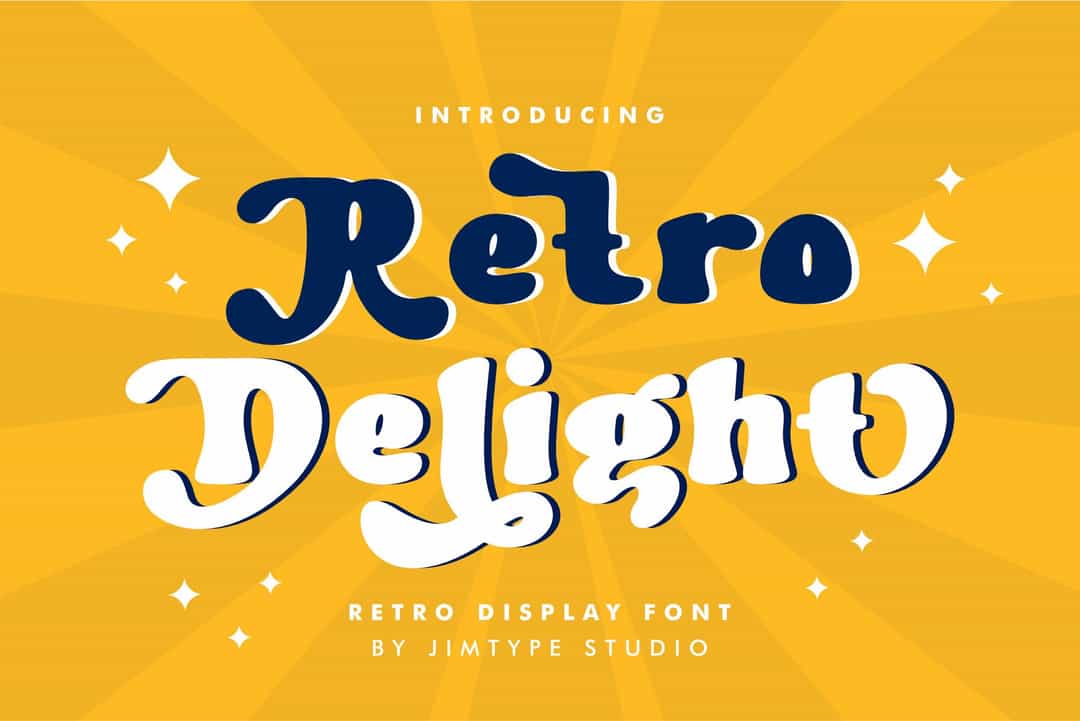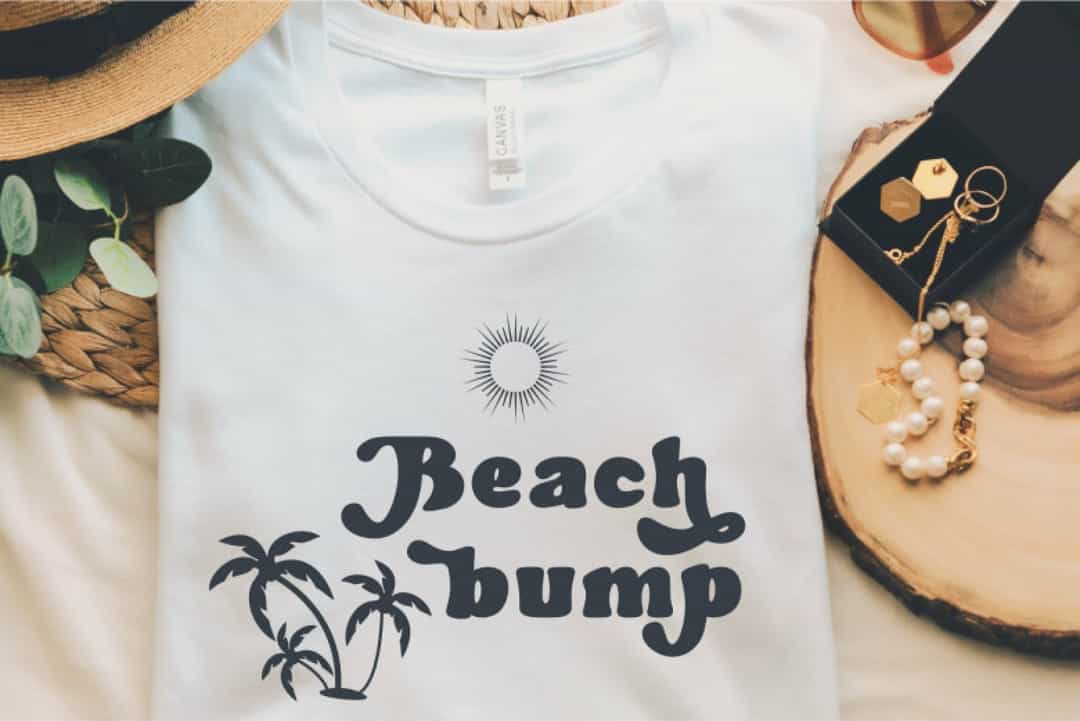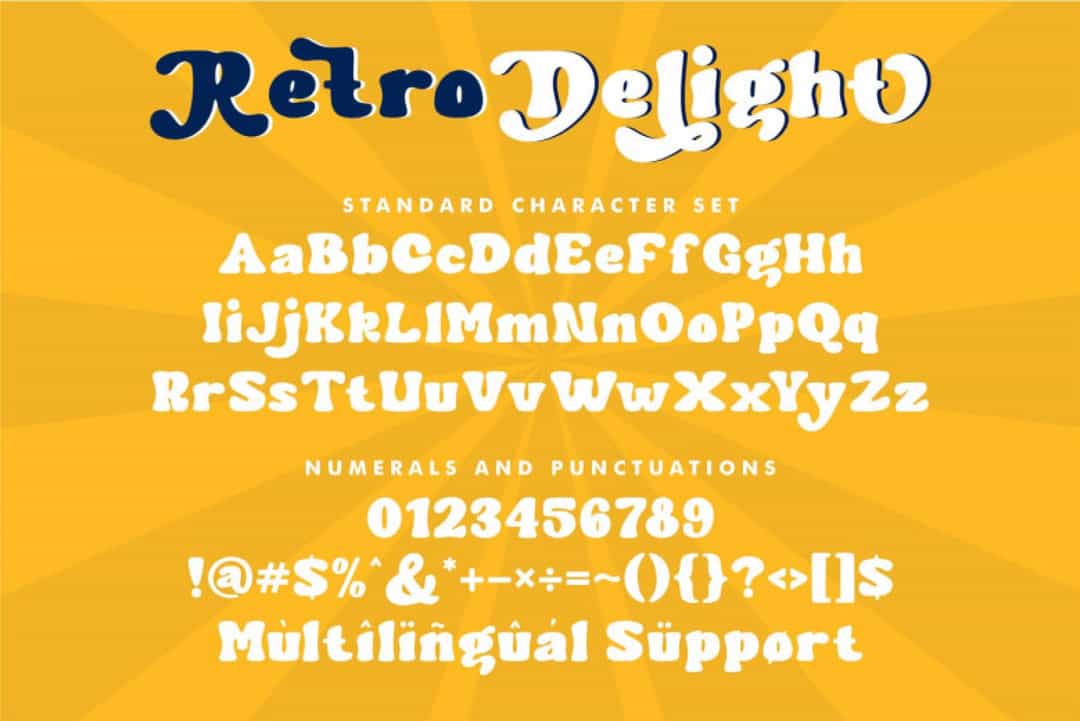
Retro Delight Font has finally made its way into design! A combination of cuteness, nostalgia, and playfulness, it is ideal for use on logos for shop, website projects with childish themes, feminine websites or simply to bring joy. Be sure to capture customer hearts using Retro Delight!